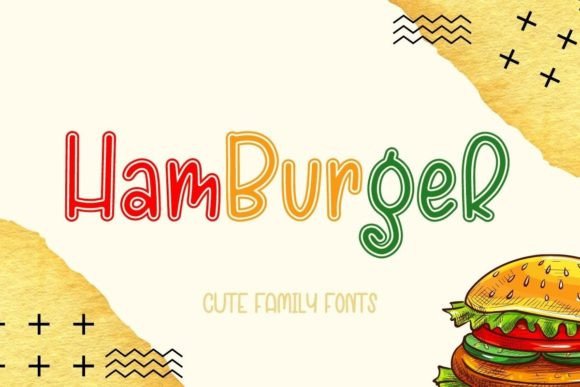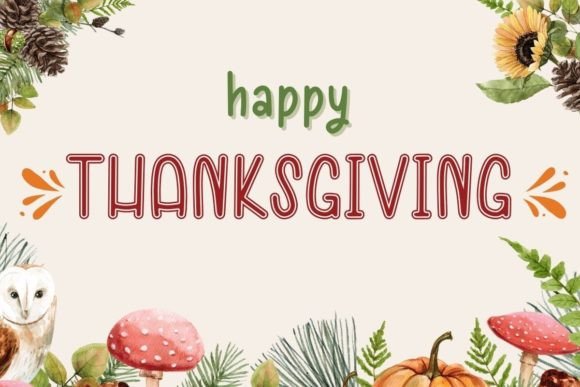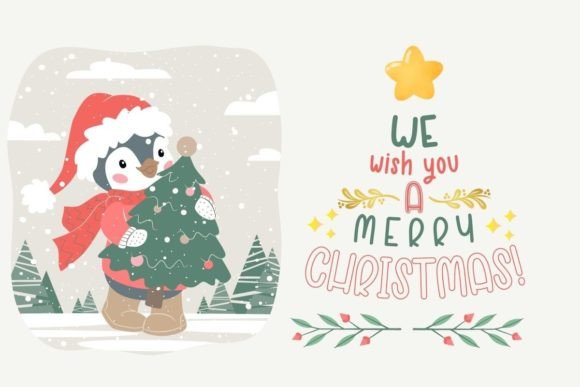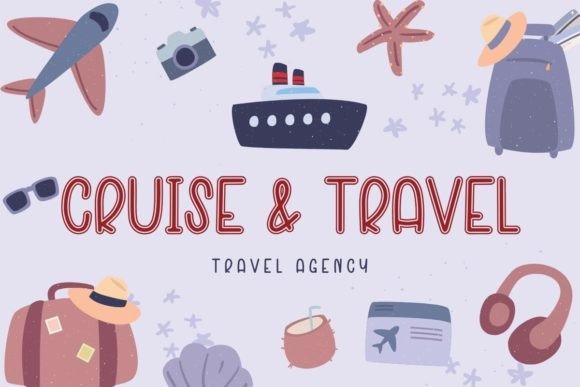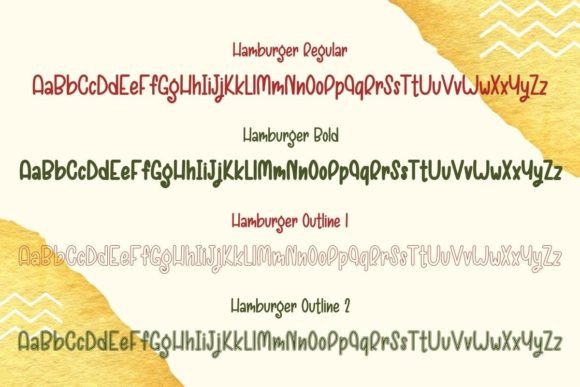
Hamburger Font
Hamburger Font Download – Cute Friendly Handwritten Script
The Hamburger Font download is a cute and friendly handwritten typeface designed to bring warmth, joy, and creativity to your projects. With its casual strokes and approachable personality, this font is perfect for both personal and professional designs. Whether you’re working on crafts, digital graphics, or greeting cards, Hamburger ensures your creations feel charming and memorable.
A Cute and Friendly Handwritten Style
The Hamburger Font download features smooth, rounded strokes that capture the essence of friendly handwritten notes. Its playful character adds a sense of approachability, making it suitable for a wide range of creative uses.
Perfect for Crafts and DIY Projects
The Hamburger Font download is a natural choice for scrapbooks, stickers, planners, and handmade cards. Its handwritten charm makes every DIY project feel personal, unique, and full of joy.
Great for Greeting Cards and Invitations
From birthday cards to festive invitations, the Hamburger Font download adds warmth and style. Its neat letterforms and cheerful vibe ensure your designs communicate positivity and creativity.
Ideal for Digital Designs and Presentations
The Hamburger Font download works beautifully in digital spaces such as websites, presentations, and social media graphics. Its approachable handwritten strokes make your content engaging and easy to connect with.
Readability with Playful Personality
While some cute fonts can compromise clarity, the Hamburger Font download balances style with readability. Its clean curves and consistent strokes ensure your text is legible in both large and medium sizes.
Why Choose Hamburger Font?
Among handwritten fonts, the HamburgerFont download stands out with its cute, friendly charm and versatile usability. It is casual enough for personal projects yet polished enough for professional designs.
Add Joy to Your Creative Projects
Typography influences the tone of your work, and the HamburgerFont download helps you create fun, warm, and stylish designs. Whether for crafts, cards, or digital projects, this font ensures your creations feel approachable and full of character.